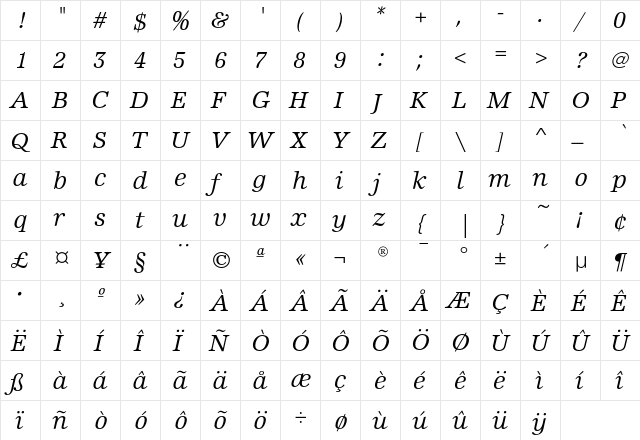
EdisonEF-BookItalic Regular
Design Context for EdisonEF-BookItalic Typeface
EdisonEF-BookItalic takes a measured approach to typography — its balanced proportions and neutral character make it a reliable workhorse for both digital and print work. Its italic angle brings a sense of urgency and motion to the letterforms.
Pro Tip: Use EdisonEF-BookItalic for emphasis, pull quotes, and subheadings where its slanted energy can add rhythm to the layout.